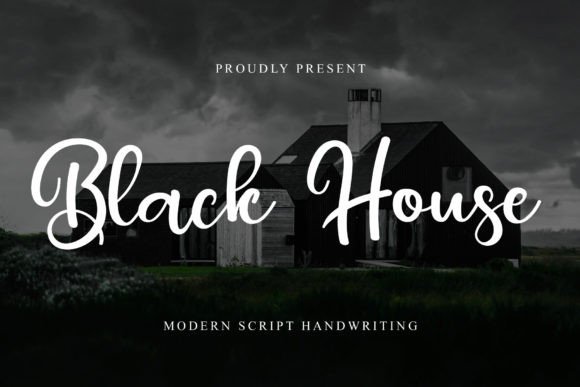
The Charm of Black House Font: A Designer’s Delight
I still remember the time I was working on a wedding invitation project, and I just couldn’t find the right font to give it that personal touch. The client wanted something elegant, yet charming, and I was on a mission to deliver. That’s when I stumbled upon the Black House font, and it instantly felt like the perfect fit. In this article, I’ll share my experience with this beautiful font, its features, and how to make the most of it in your designs.
An Honest Review of Black House Font
- ✨ Elegant and charming handwritten feel
- ✅ Perfect for wedding invitations, thank you cards, and greeting cards
- ✅ Works well for quotes, logos, and business cards
- ✅ Easy to read and understand, even in smaller sizes
While Black House font is a stunning addition to any design, there are a few things to keep in mind:
- ⚠️ Limited availability of stylistic alternates, but still offers a range of OpenType features
- 🤔 May not be the best choice for body text or long paragraphs, as it’s more suited for headlines and titles
The Backstory of Black House Font
Black House font was designed with the intention of creating a elegant, yet charming handwritten font. The designer aimed to craft a font that would feel at home in wedding invitations, greeting cards, and other formal events. With its beautiful letterforms and range of OpenType features, Black House font has become a popular choice among designers and crafters.
Q: What is the best use for Black House font?
A: Black House font is perfect for wedding invitations, thank you cards, greeting cards, logos, business cards, and any other design that requires a handwritten touch.
Q: Is Black House font suitable for body text?
A: While Black House font is easy to read, it’s more suited for headlines and titles. For body text or long paragraphs, a more traditional font might be a better choice.